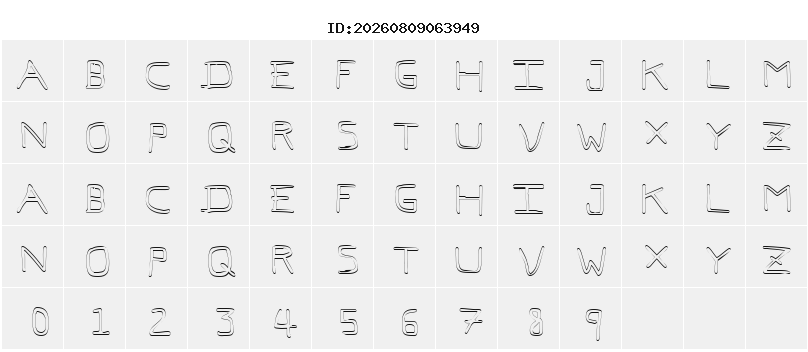
About Pfvvbf7o.ttf
Pfvvbf7o.ttf is a modern, elegant sans-serif font designed for ultimate readability and visual harmony. Perfect for branding, headlines, web design, and print materials.